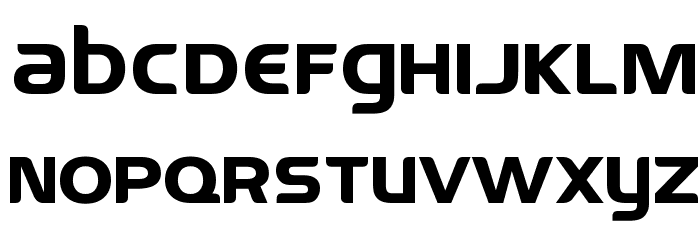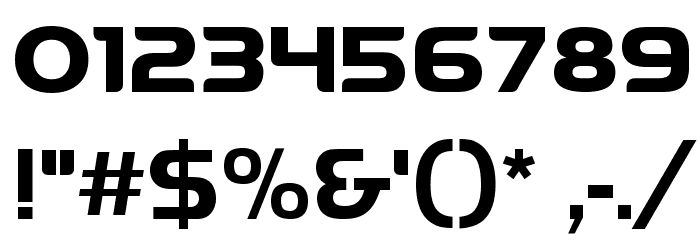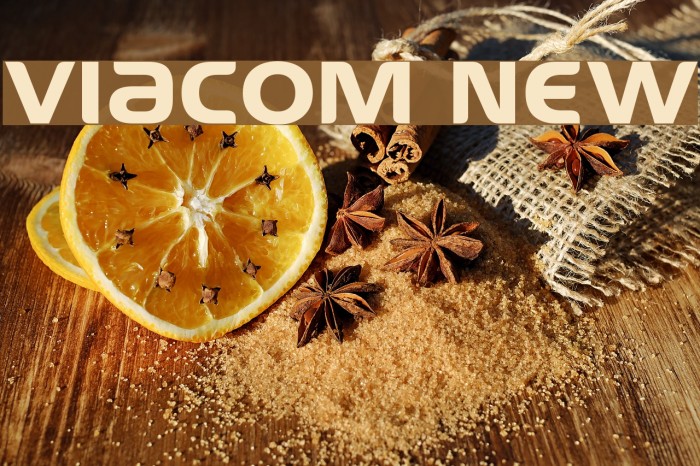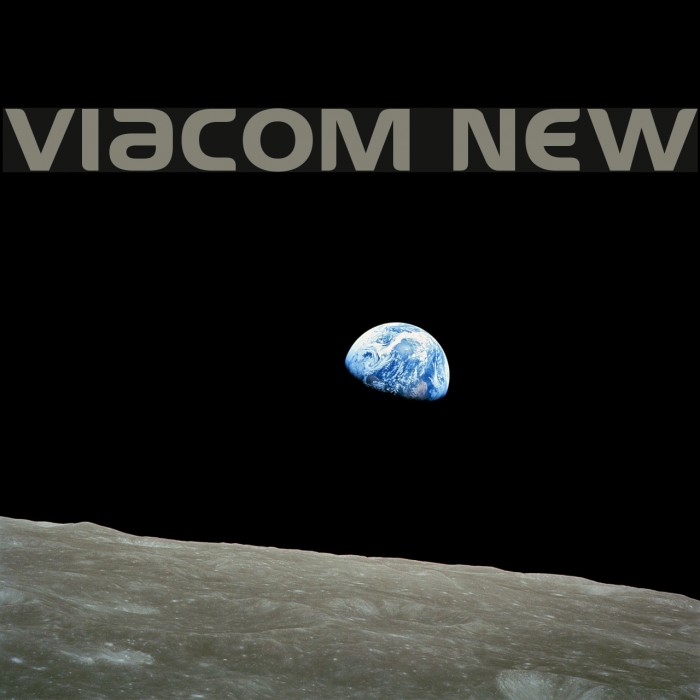
Viacom New Font
This font features a bold and modern design with a geometric and slightly rounded appearance. The characters are uniform in width, providing a clean and structured look. The uppercase and lowercase letters maintain consistent proportions, enhancing readability. The numbers and special characters are designed to match the overall style, ensuring a cohesive appearance across all text. The font's boldness and contemporary style make it suitable for various design applications.
A bold, modern font with geometric and slightly rounded characters.
- Font: Viacom New
- Proposed Projects: Ideal for branding, advertising, and digital media projects where a modern and bold typeface is required.
- Category: Sans-Serif
- Use Case: Headlines, Logos, Branding